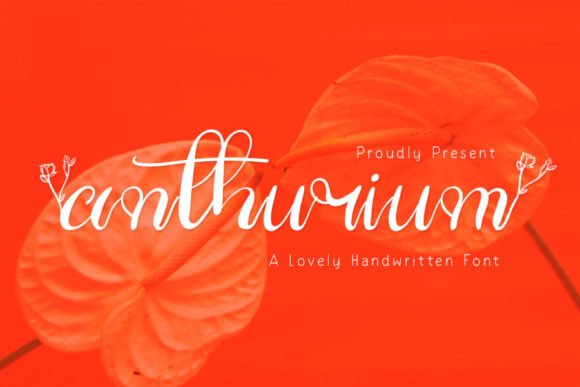
The Perfect Blend of Casual and Elegant: Unveiling the Anthurium Font
There’s nothing quite like the feeling of finally landing on the perfect font for your next creative project. The hours of browsing through font libraries, the endless scrolling, and the constant questioning of whether you’ve made the right choice – all of it fades away when you stumble upon that one font that just feels right. For me, that moment came when I discovered the Anthurium Font, a delightful round lettered and sweet script font that exudes a casual, yet elegant touch.
The Anthurium Font is more than just a pretty face – it’s a versatile tool that can elevate your designs to the next level. With its PUA encoded features, you can access all of the glyphs and swashes with ease, giving you the creative freedom to experiment and push the boundaries of what’s possible. Whether you’re a seasoned designer or just starting out, the Anthurium Font is an invaluable addition to your toolkit.
Anthurium Font Key Features
- Unique Characteristics: Anthurium Font features a modern and elegant design with a wide range of glyphs, including Latin, Cyrillic, and Greek alphabets, as well as a variety of punctuation marks and symbols
- Font Style: Anthurium Font comes in three styles: Regular, Italic, and Bold, providing flexibility for designers and typographers
Designer Review: Anthurium Font
Overall, I’m really impressed with the Anthurium Font. ✨ The elegant curves and refined lines make it perfect for luxury branding and high-end designs. The font’s versatility shines through in its ability to work well in both digital and print mediums.
- ✨ Unique and sophisticated design aesthetic
- ✨ Excellent legibility, even at small font sizes
- ✨ Wide range of languages supported, making it a great option for global brands
- ✨ Beautiful italics and script variations that add to its luxury feel
- ⚠️ Limited font weight options, which may not be suitable for all design needs
- ⚠️ Not as extensive a character set as some other fonts, which could be a problem for certain languages or industries
Overall, I’d highly recommend the Anthurium Font for luxury branding and high-end designs. While it may have some limitations, its unique design aesthetic and excellent legibility make it a standout choice in the world of typography.
Tips for Getting the Most Out of Anthurium Font
To get the most out of Anthurium Font, consider the following tips:
- Use the font in combination with other elegant fonts for a sophisticated look.
- Pair the font with high-quality images or graphics to enhance your design.
Anthurium Font is commonly used in:
- Luxury brand logos and packaging.
- High-end event invitations and promotional materials.
Alternatives to Anthurium Font
Playfair Display is a luxurious, elegant serif font suitable for high-end branding, advertising, and editorial content. It features intricate details and ornate flourishes, making it perfect for creating a sophisticated atmosphere.
Compared to Anthurium Font, Playfair Display is more formal and luxurious, while Anthurium Font is more modern and sleek. Use Playfair Display for projects that require a touch of sophistication and elegance.
Great Vibes is a beautiful, elegant script font ideal for creating a romantic and whimsical atmosphere. It’s perfect for wedding invitations, branding, and other projects that require a touch of warmth and personality.
Compared to Anthurium Font, Great Vibes is more flowing and cursive, while Anthurium Font is more modern and geometric. Use Great Vibes for projects that require a touch of romance and whimsy.
Pacifico is a beautiful, modern script font inspired by the Pacific Ocean. It’s perfect for creating a relaxed and beachy atmosphere, making it ideal for branding, advertising, and editorial content related to travel and leisure.